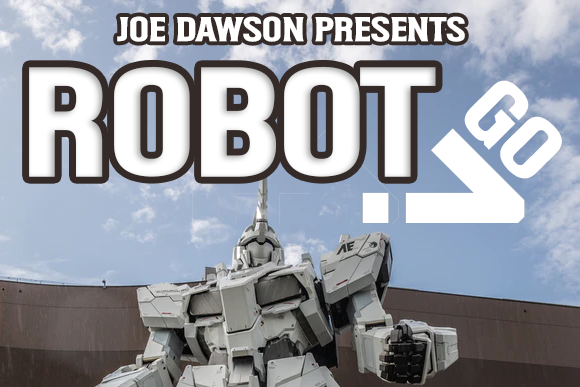
Behold, Robot Go Font, a display font that oozes boldness and chunkiness, ready to catapult your creative ideas into the stratosphere of visual brilliance! Crafted by the ingenious Joe Dawson, this font is a game-changer, a revolution in the realm of typography.
Immerse yourself in the world of Robot Go, where letters take on a life of their own, commanding attention with their solid, powerful presence. Each character brims with personality, exuding a sense of strength and determination that will leave an indelible mark on your designs.
Unleash the potential of Robot Go and witness the transformation of your logos, posters, headlines, and social media graphics. Its chunky, blocky letters possess an inherent charm that captivates the eye, making your designs impossible to ignore.
Robot Go is not just a font; it's a statement, a declaration of your unique style and vision. Embrace its bold, unapologetic nature and let your creativity soar. Whether you're a seasoned designer seeking a font that packs a punch or a budding entrepreneur looking to make a statement, Robot Go is your perfect companion.
Join the ranks of those who have discovered the power of Robot Go and elevate your designs to new heights. Let your imagination run wild as you explore the endless possibilities that this remarkable font presents.
Don't resist the allure of Robot Go any longer. Embrace its bold, captivating essence and prepare to witness the transformation of your creative projects. Download Robot Go today and embark on a journey of visual excellence!